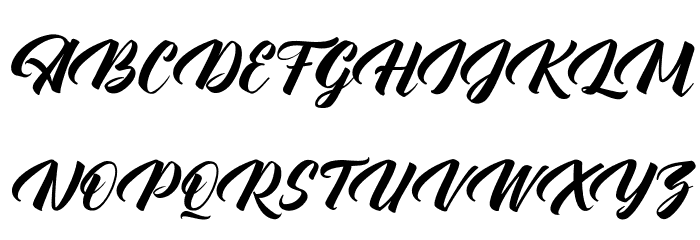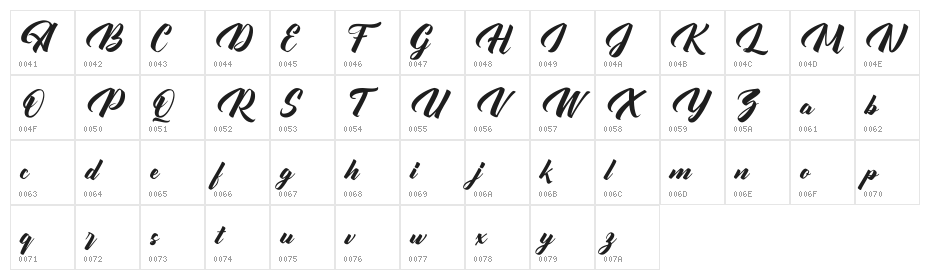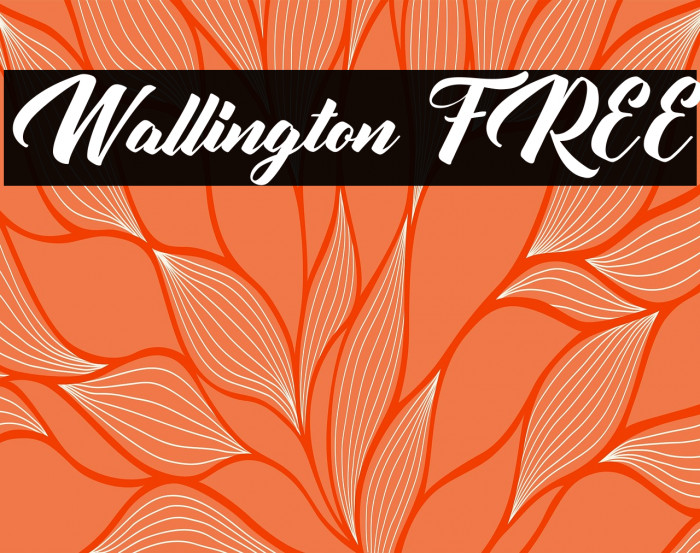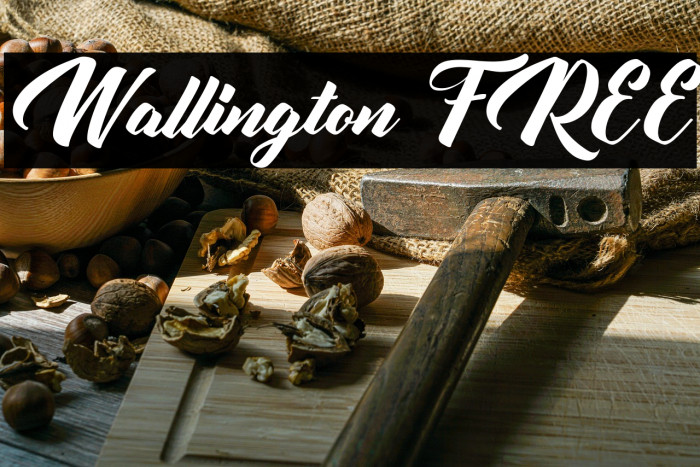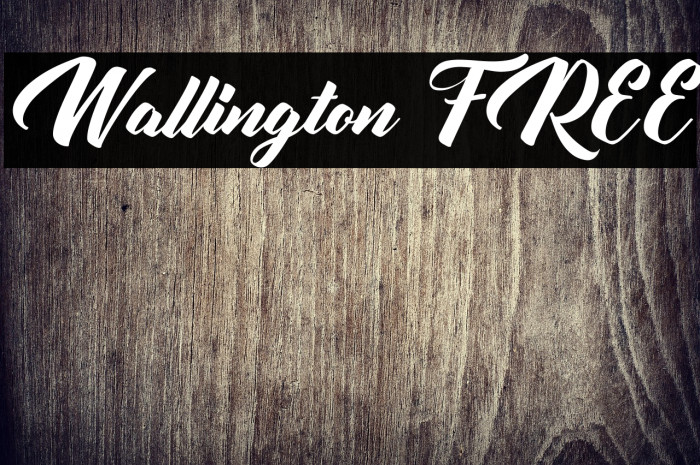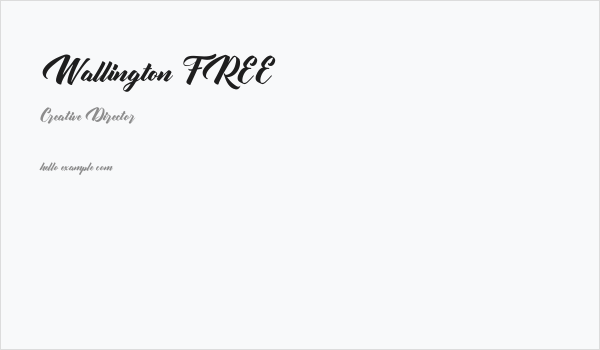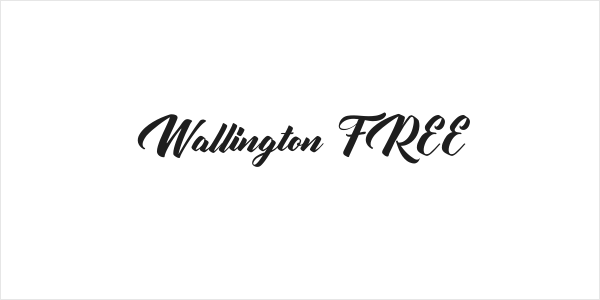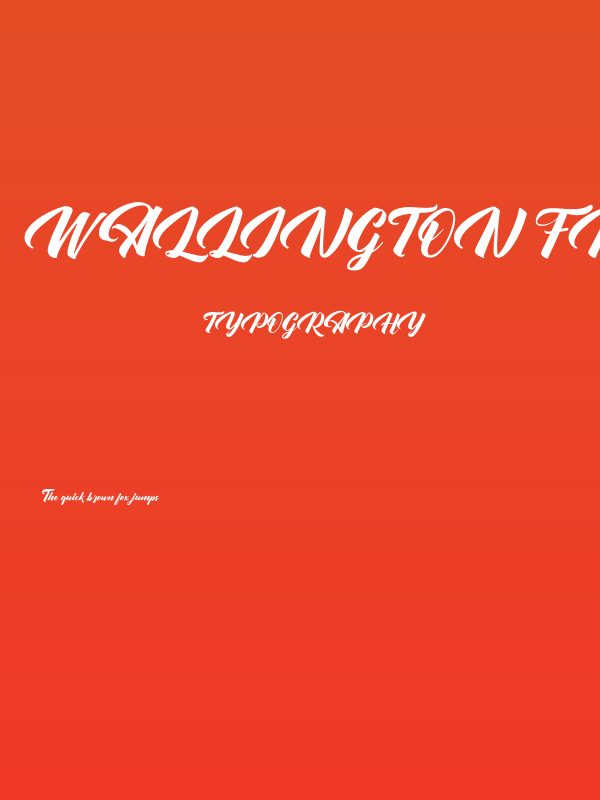
Wallington FREE Font
Wallington FREE Description
This font features a dynamic and flowing script style, characterized by its elegant and cursive letterforms. The strokes are bold and sweeping, with a consistent thickness that gives it a strong presence. The uppercase letters are particularly ornate, with flourishes that add a touch of sophistication. The lowercase letters maintain a smooth and connected appearance, enhancing the overall fluidity of the design. This font is well-suited for creating impactful and stylish text, making it ideal for branding, invitations, and decorative purposes. Its bold nature ensures readability while maintaining an artistic flair.
| Proposed Projects | Ideal for branding, invitations, decorative text, and stylish headlines. |